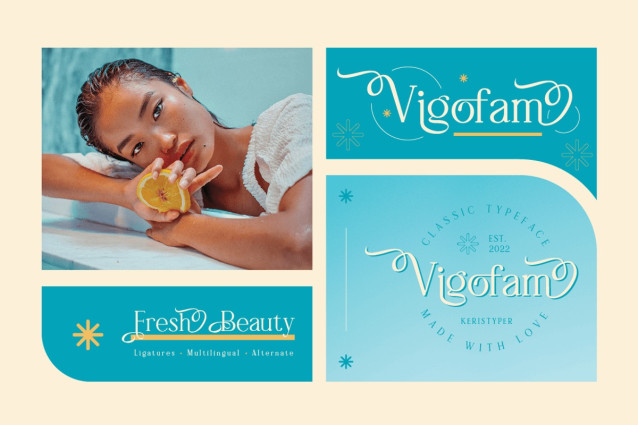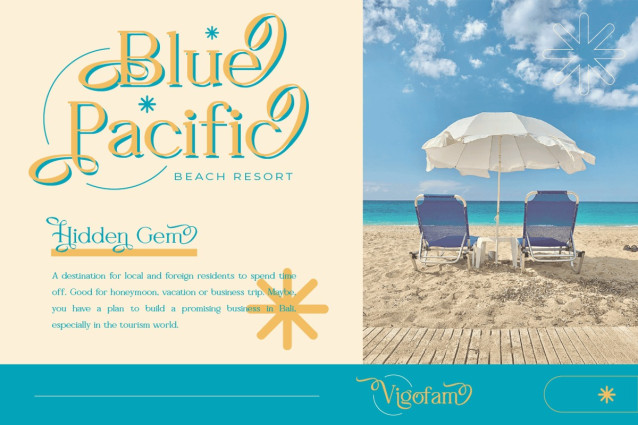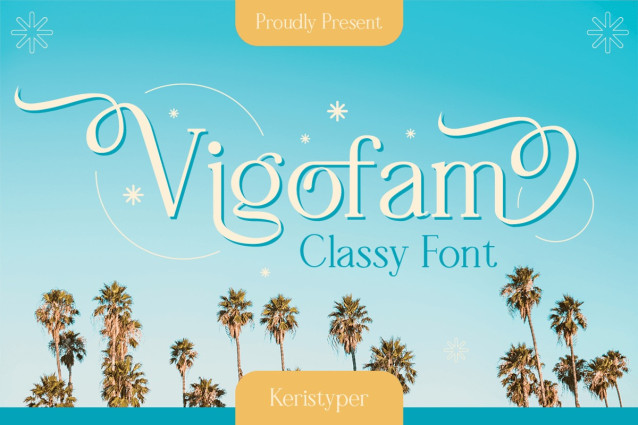
Vigofam Font
Vigofam serif typeface is an elegantly themed font that has a dynamic serif style. This font is good for logo design, Social media, Movie Titles, Books Titles, short text even long text letters, and good for your secondary text font with sans or serif.